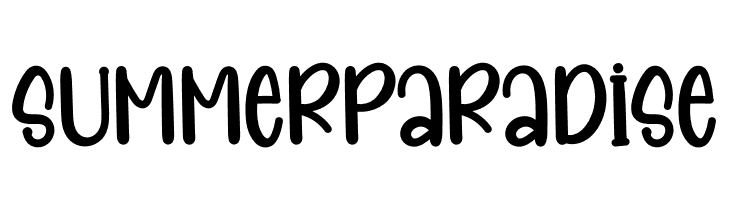
( Fonts by Inermedia Studio )
A playful, bold font with rounded, smooth letterforms and a whimsical, handwritten style.
( Fonts by Figuree Studio )
A bold, playful font with dynamic, slightly irregular letterforms.
( Fonts by Fachranheit )
A bold, playful font with thick, rounded characters perfect for energetic designs.
( Fonts by Fachranheit )
A bold, italicized font with thick strokes and a dynamic, playful style.
( shfonts.com )
A bold, playful outline font with a retro comic book style.
( Fonts by Alex Tomlinson - Skyhaven Fonts - shfonts.com )
A playful, bold, and hand-drawn font perfect for creative and lively designs.
( Fonts by Ali Hamidi )
A bold, playful font with a hand-drawn, energetic style.
( Fonts by Nirmala Creative )
A playful, bold font with rounded characters and a strong presence.